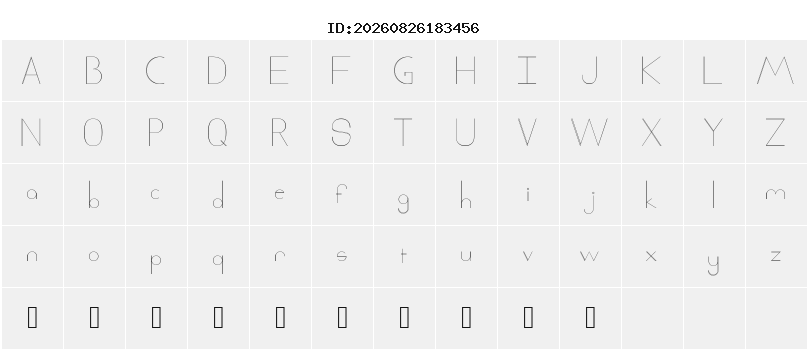
Xack Preview
• Font Name: Xack
• Full Font Name: Xack
• PostScript Name: Xack
About Xack.ttf
Xack.ttf is a modern, elegant sans-serif font designed for ultimate readability and visual harmony. Perfect for branding, headlines, web design, and print materials.